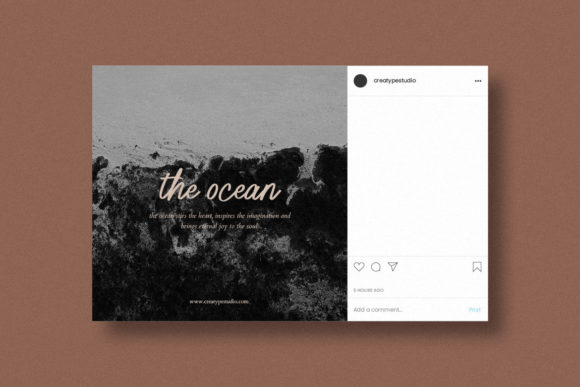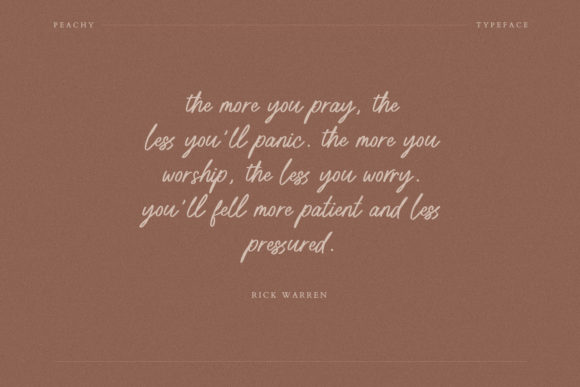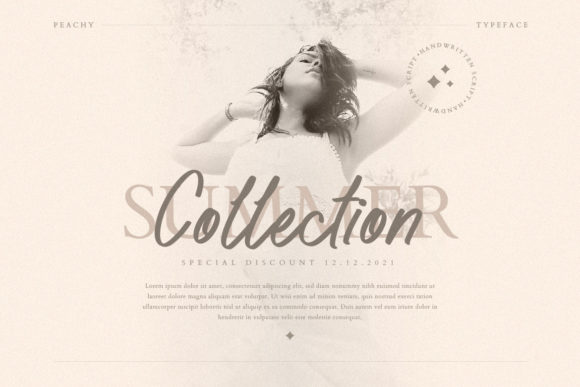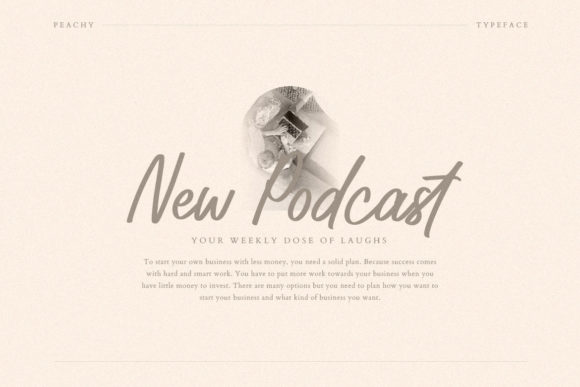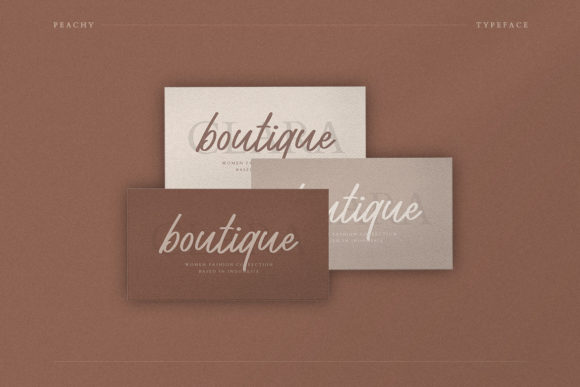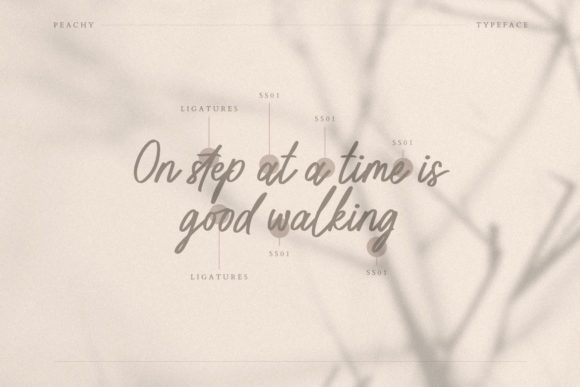
Introduction to Peachy Script Font
Peachy Script is a beautiful and refined script font.
It has a classy, elegant and modern look that can be used for logos, branding, invitations, stationery, wedding designs, social media posts, and much more Peachy Script is PUA encoded which means you can access all of the amazing glyphs and ligatures with ease.